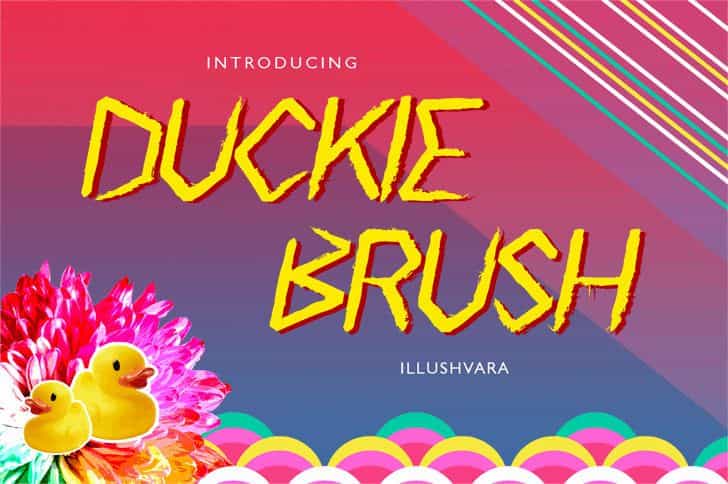
Discover Duckie Brush Font, part of the Brush collection—a versatile and unique font perfect for adding a personal touch to your projects. Download it for free and enjoy crafting designs with style, from invitations to social media posts. This font is available exclusively for personal use, giving you the freedom to create without limits. Unlock your creativity with Duckie Brush Font today!
Duckie Brush is a free to download and to use script font that was designed by a talented type designer called illushvara. The free version can include all the capital and small letters of the alphabet and some symbols.